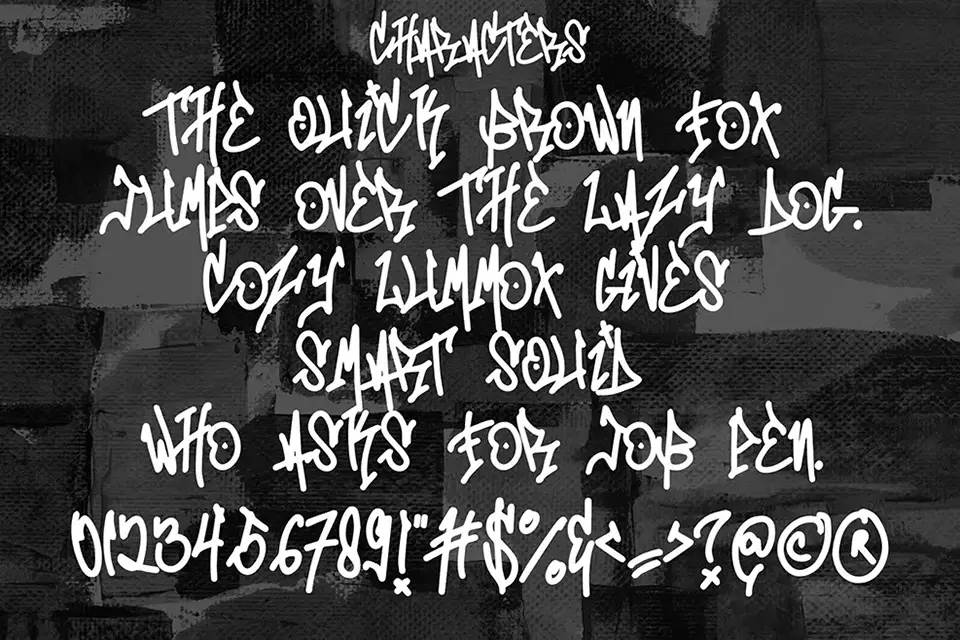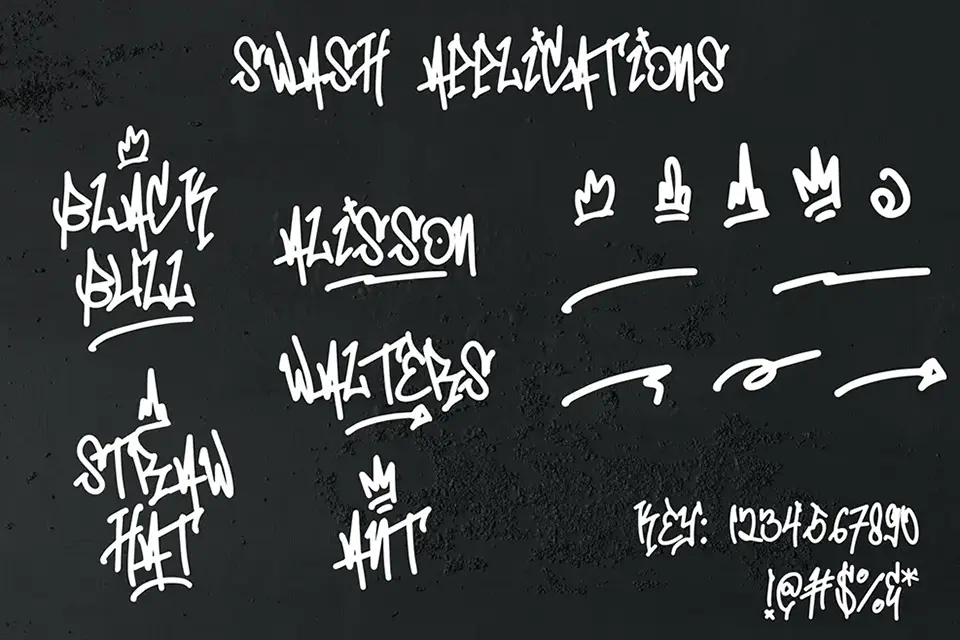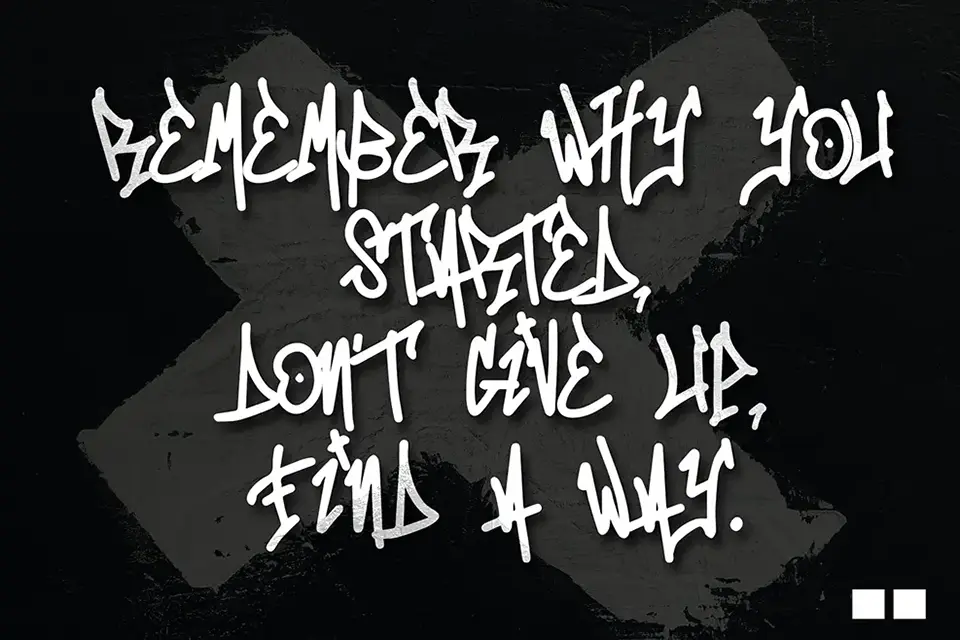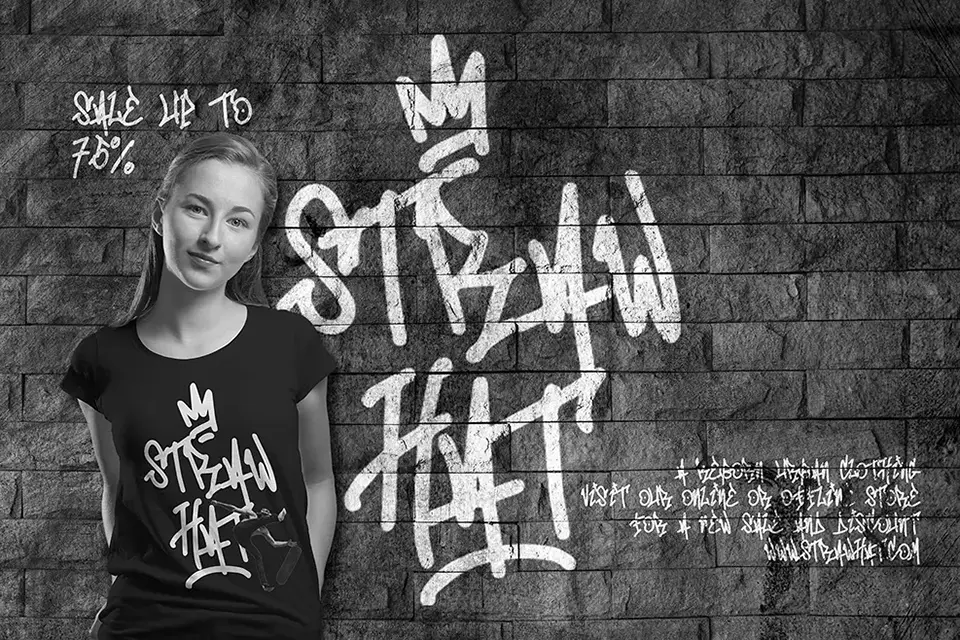
Mono Seahorse Graffiti Font
Mono Seahorse Graffiti is a bold, dynamic graffiti-inspired display font featuring hand-drawn characters with sharp angles and expressive letterforms. This striking typeface exudes raw urban energy and rebellious character, making it ideal for eye-catching headlines, impactful branding, street art applications, music posters, and edgy product packaging. With its condensed width, gritty texture, and distinctive angular style, the font delivers a modern, contemporary aesthetic perfect for projects seeking to convey creativity and unapologetic attitude.